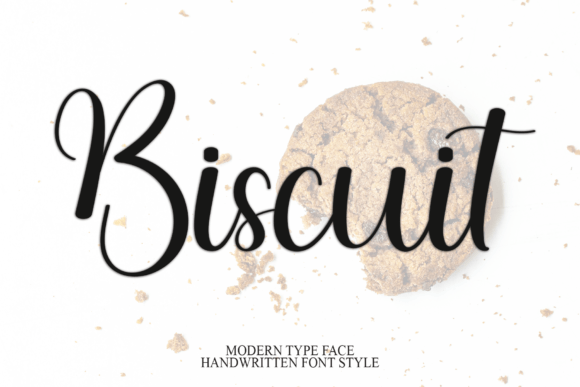
The Perfect Blend of Elegance: Unleashing the Power of Biscuit Font
Have you ever found yourself rummaging through your grandmother’s old recipe book, feeling the soft pages and admiring the beautiful handwritten notes that bring the recipes to life? That’s the kind of warmth and character we’re looking to infuse into our designs with the Biscuit Font.
Biscuit is a stylish and elegant script font that adds a touch of sophistication to any project. Whether it’s a wedding invitation, a heartfelt thank you card, or a company logo, Biscuit Font brings a sense of personality and charm that’s hard to resist. As a designer, you’re constantly on the lookout for the perfect font to elevate your work, and Biscuit Font is an absolute gem that’s sure to impress your clients and leave a lasting impression.
Biscuit Font Key Features
- Font Family: Biscuit Font is a unique, handwritten font family with 4 styles (Regular, Italic, Bold, Bold Italic) designed to evoke a warm, homemade feel.
- Unique Characteristics: Biscuit Font features a distinctive, hand-drawn aesthetic with subtle imperfections and variations in stroke width, giving it a charming, organic feel.
Biscuit Font Review
Overall, I’d say the Biscuit Font is a sweet addition to any design project. Here’s what I love about it:
- ✨ The font’s playful, vintage vibe is perfect for creating a whimsical atmosphere in branding, advertising, or editorial designs.
- ✨ Biscuit Font’s unique character shapes add a touch of personality to your text, making it stand out from more traditional sans-serif fonts.
- ✨ The font’s wide range of weights and styles provides ample flexibility for customizing your design to fit your needs.
- ⚠️ Biscuit Font may not be the best choice for formal or professional designs, as its playful nature can come across as unpolished or immature.
- ⚠️ Some users may find the font’s irregularities and quirks distracting, particularly in small text sizes or when used in large quantities.
Overall, I think the Biscuit Font is a great choice for designers looking to add some personality to their work. While it may not be suitable for every project, its unique charm and versatility make it a valuable addition to any design toolbox.
The Biscuit Font is ideal for:
- Casual blog posts and articles
- Food and recipe design
- Invitations and event graphics